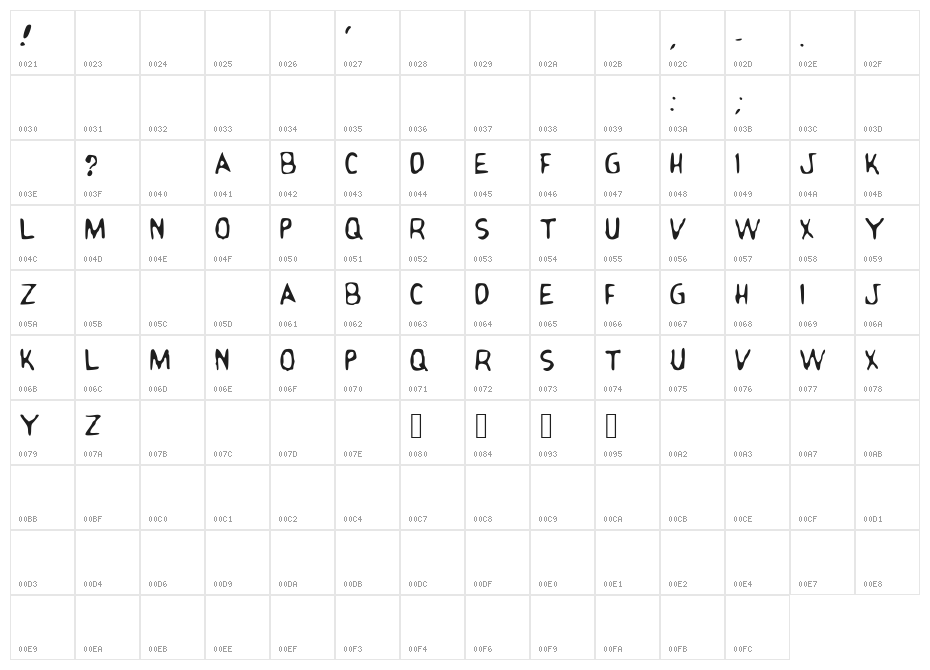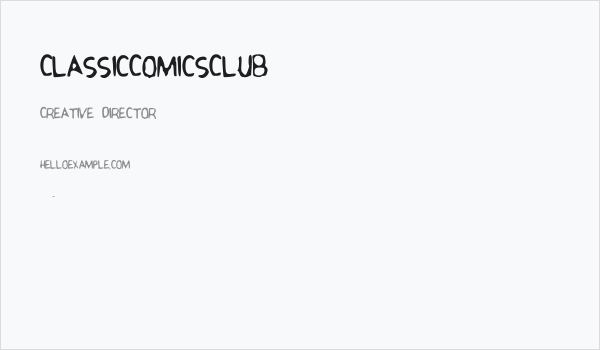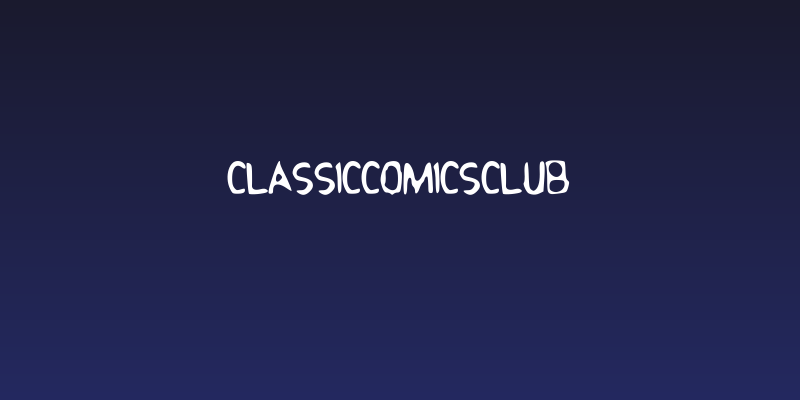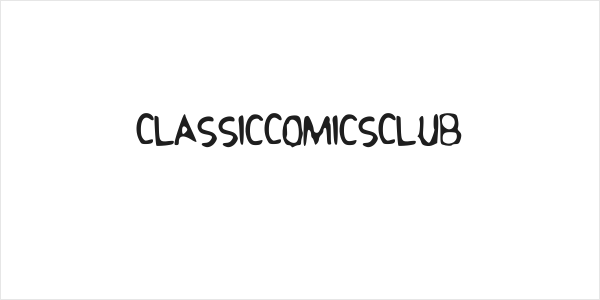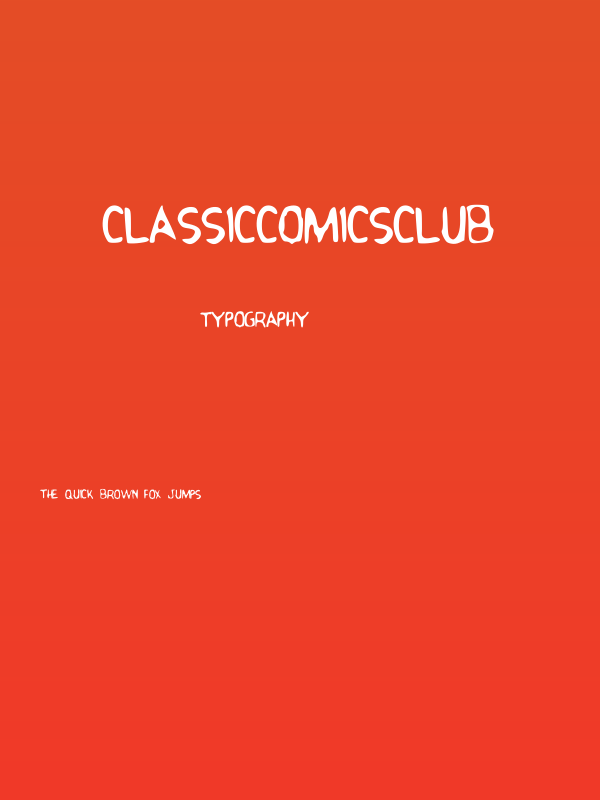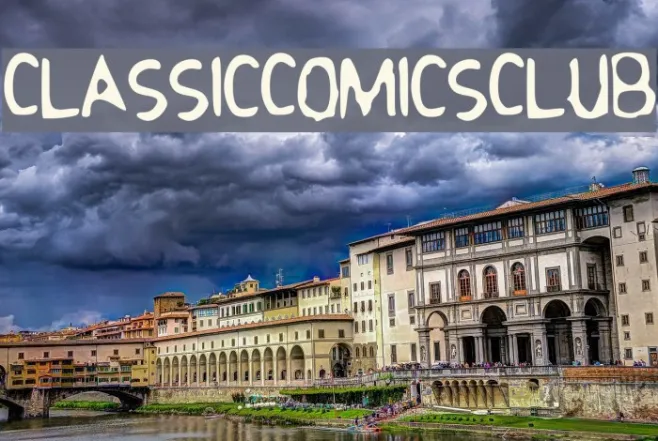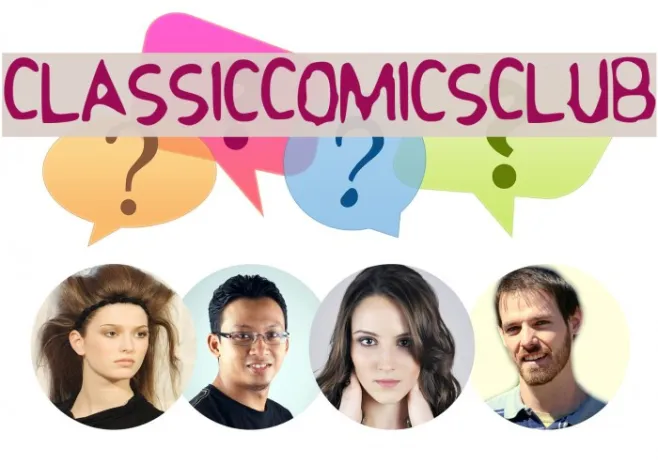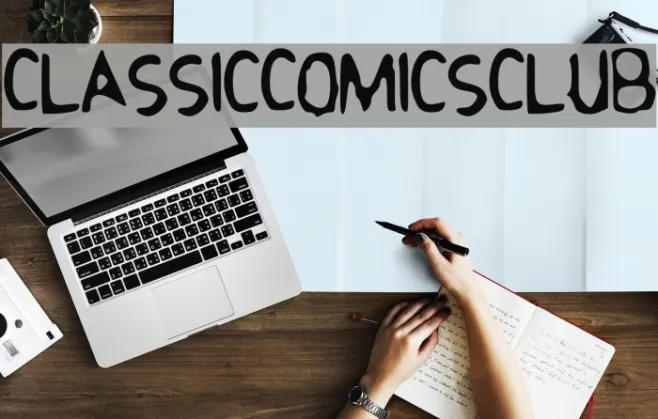
ClassicComicsClub Font
ClassicComicsClub Description
This font features a playful and bold style with irregular, hand-drawn strokes that give it a lively and dynamic appearance. The characters are slightly uneven, adding a whimsical touch that is reminiscent of comic book lettering. The uppercase and lowercase letters maintain a consistent height, contributing to a cohesive look. The font's unique character shapes and bold presence make it stand out, while its informal style conveys a sense of fun and creativity. The special characters are designed to match the overall playful theme, enhancing its versatility for various creative projects.
| Overall Style | Playful, Comic |
| Proposed Projects | Ideal for comic books, children's books, playful branding, and creative posters. |